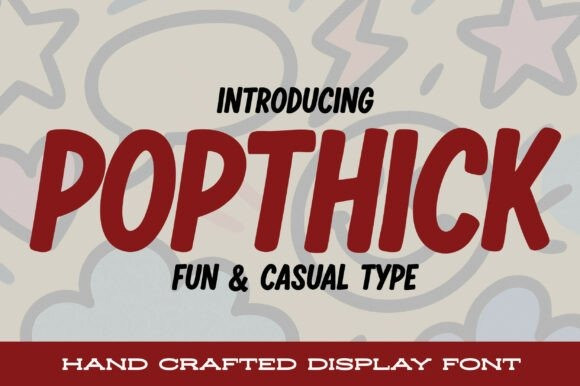
Popthick Font
Designer: stompstock
PopThick Font is a bold, juicy, hand-drawn display font bursting with personality. Its chunky strokes and smooth curves give it a lively, upbeat feel perfect for branding, packaging, posters, merch, and social content that needs to shout with confidence. Each letter carries the charm of hand-inked marker work – playful, friendly, and irresistibly fun. PopThick is all about impact: thick lines, big energy, and a cheerful vibe that makes any message feel louder and happier.